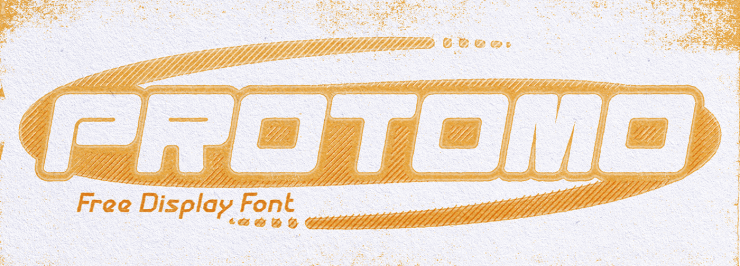
Protomo – a versatile Y2K inspired font. It’ll look good advertising rollerblades and skateboards or as the logo for a tech website destroyed by the dot-com bubble.
Protomo Free Font